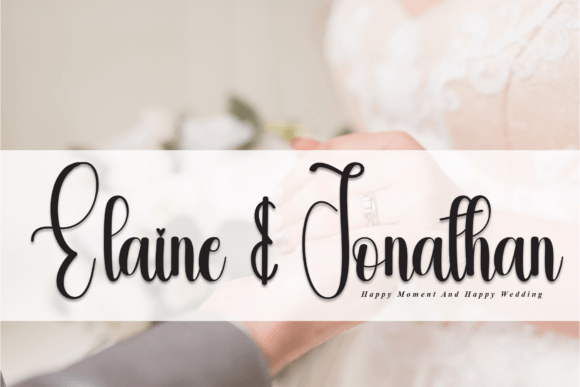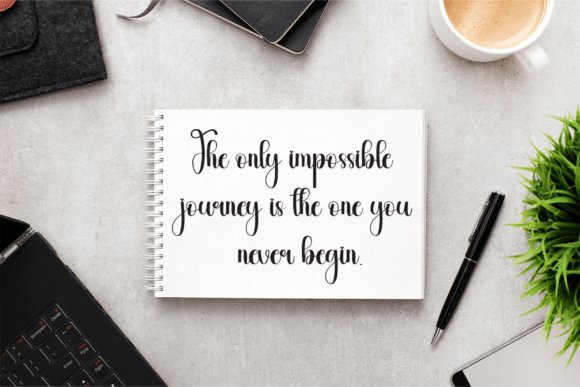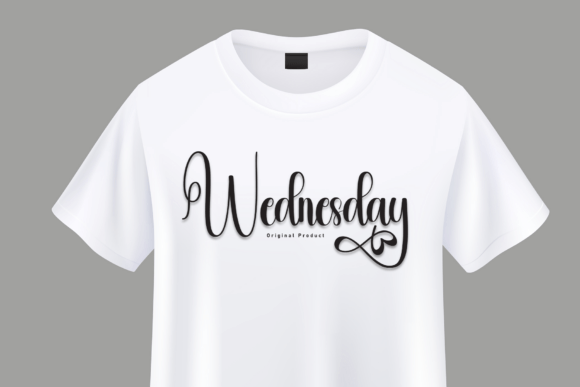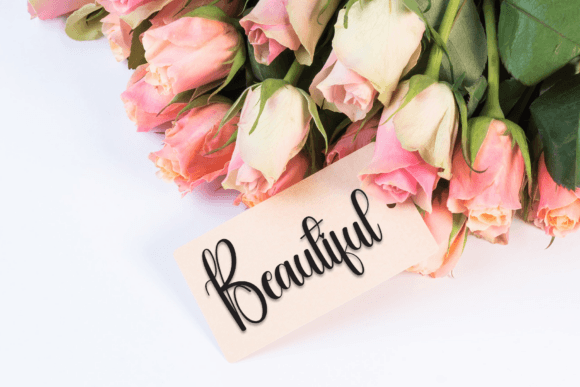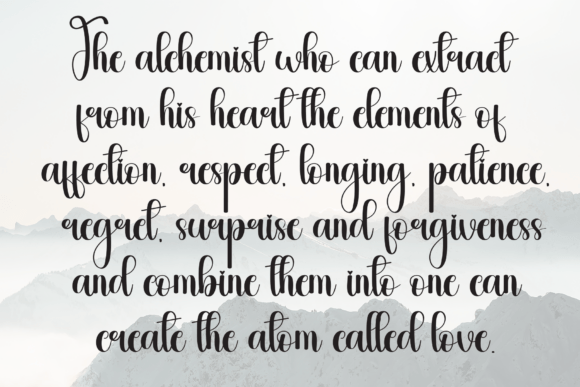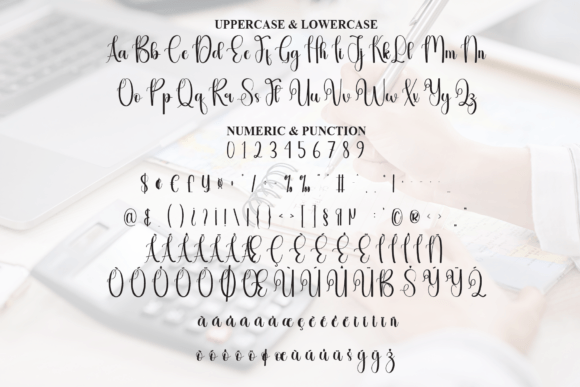
Introducing Budget Font: Elevate Your Designs with Elegance and Charm
Are you tired of using the same old fonts in your designs? Look no further than Budget Font, a stylish handwritten script font that’s sure to add a touch of sophistication and elegance to any project. With its fluid strokes and natural flow, Budget Font is perfect for designers and crafters looking to create captivating and unique designs that stand out from the crowd.
The Characteristics of Budget Font
Budget Font is a beautifully crafted handwritten script font that exudes warmth and creativity. Its fluid strokes and natural flow create a sense of movement and fluidity, making it perfect for designs that require a personal touch. The font’s elegant and charming appearance is sure to add a touch of sophistication to any design, making it ideal for use in invitations, branding, social media, and more.
What Makes Budget Font Special?
So, what sets Budget Font apart from other fonts on the market? Here are just a few reasons why designers and crafters are falling in love with this beautiful font:
- Elegant and Charming: Budget Font’s fluid strokes and natural flow create a captivating, sophisticated look that’s sure to impress.
- Perfect for Personalized Designs: With its warm and creative feel, Budget Font is ideal for adding a personal touch to invitations, branding, social media, and more.
- Versatile: Budget Font can be used in a variety of design applications, from digital projects to print materials.
- Easy to Read: Despite its elegant and cursive appearance, Budget Font is easy to read and understand, making it perfect for body text and headlines.
How to Use Budget Font in Your Designs
Ready to add Budget Font to your design toolkit? Here are a few tips for incorporating this beautiful font into your projects:
- Invitations: Use Budget Font to create beautiful and elegant invitations for weddings, parties, and other special events.
- Branding: Add a touch of sophistication to your brand with Budget Font, perfect for logos, business cards, and more.
- Social Media: Use Budget Font to create eye-catching social media graphics, quotes, and posts that stand out from the crowd.
- Digital Projects: Budget Font is perfect for use in digital projects, such as ebooks, presentations, and more.
Tips for Getting the Most Out of Budget Font
To get the most out of Budget Font, here are a few tips to keep in mind:
- Experiment with Font Sizes: Budget Font looks great in a variety of font sizes, so don’t be afraid to experiment to find the perfect size for your design.
- Pair with Other Fonts: Budget Font pairs well with a variety of other fonts, so try pairing it with a bold font for headlines or a clean font for body text.
- Use in Combination with Images: Budget Font looks great when used in combination with images, so try incorporating it into your design alongside photos, illustrations, or graphics.